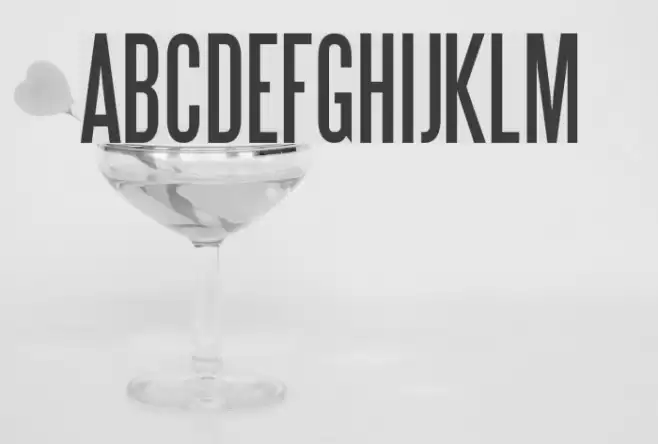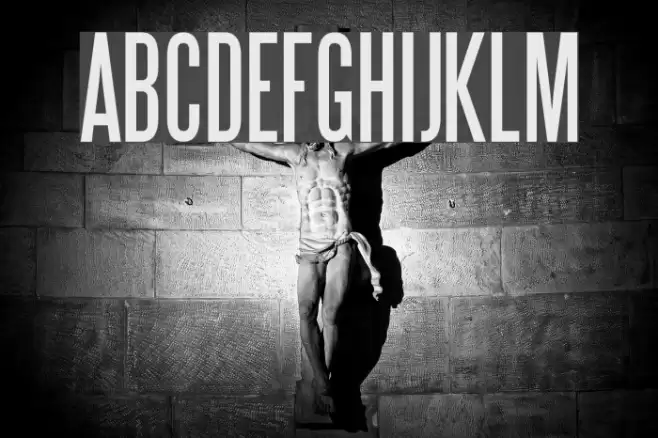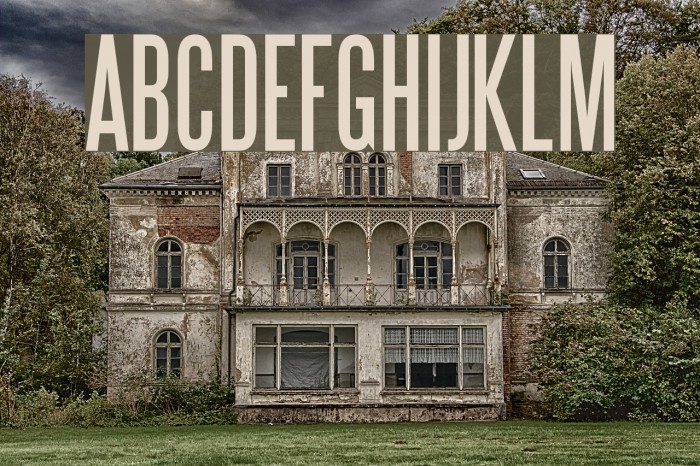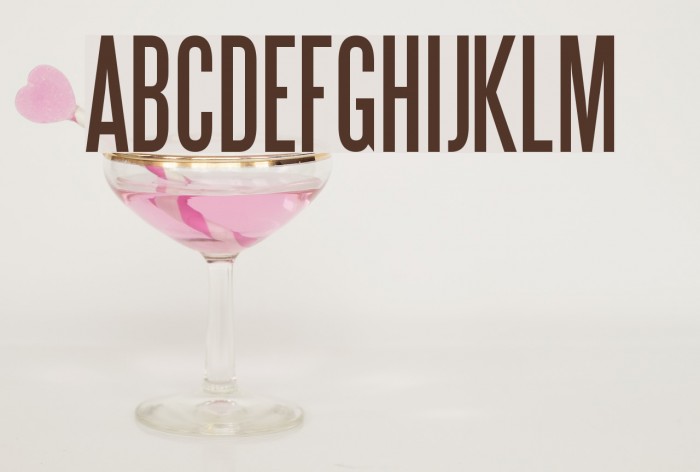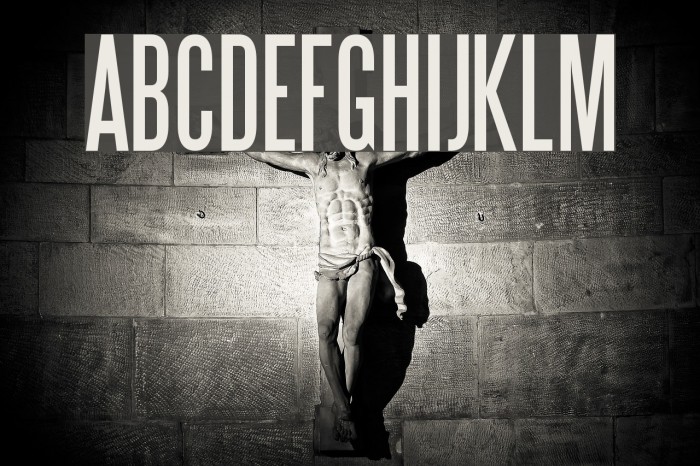
Steel Tongs Font
Steel Tongs Description
This font features a bold and condensed style, characterized by tall, narrow letterforms with a strong vertical emphasis. The uppercase letters are uniform in height, creating a cohesive and structured appearance. The lowercase letters maintain the same condensed style, ensuring consistency across all text. Numbers and special characters are designed to match the overall aesthetic, with a clean and modern look. The font's design is minimalistic, focusing on clarity and readability, making it suitable for impactful and attention-grabbing text.
A bold, condensed font with a modern and structured appearance from Uncategorized fonts.
- Proposed Projects: Ideal for movie posters, headlines, branding, and any project requiring a bold and modern typeface.
- Character Spacing: Tight